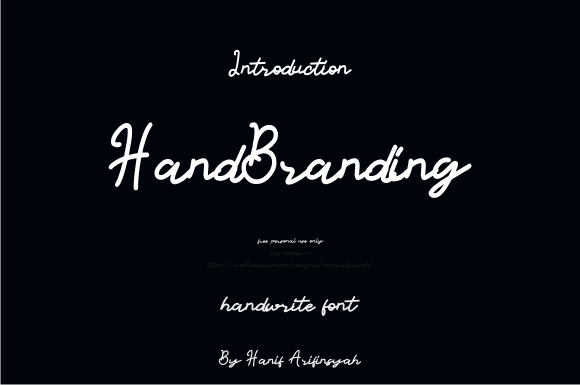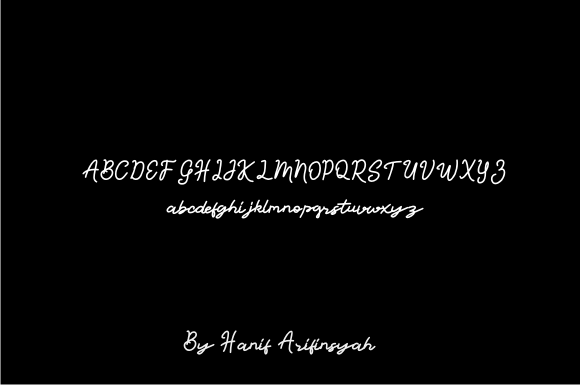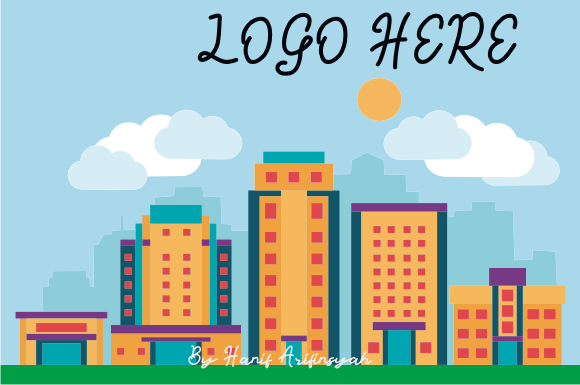
Introducing Handbranding Font: The Ultimate Game-Changer for Designers and Crafters
Are you tired of using the same old fonts in your designs? Do you want to add a touch of personality and uniqueness to your projects? Look no further than Handbranding Font, a cool and bold script font that will turn any design idea into a true standout!
What is Handbranding Font?
Handbranding Font is a carefully crafted script font that is designed to make a statement. With its bold and confident strokes, this font is perfect for designers and crafters who want to add a touch of elegance and sophistication to their work. Whether you’re working on a logo, a poster, or a social media graphic, Handbranding Font is sure to turn heads.
Key Features of Handbranding Font
- Unique and Handwritten Style: Handbranding Font has a distinctive handwritten style that sets it apart from other fonts. Its bold and flowing strokes give it a personal and human touch that will make your designs stand out.
- Highly Legible: Despite its bold style, Handbranding Font is highly legible, even at small sizes. This makes it perfect for use in a variety of design applications, from logos and headlines to body text and captions.
- Versatile: Handbranding Font is a versatile font that can be used in a wide range of design applications, from print and digital media to branding and advertising.
- Easily Customizable: With its wide range of characters and glyphs, Handbranding Font can be easily customized to fit your specific design needs.
Who is Handbranding Font for?
Handbranding Font is perfect for designers, crafters, and artists who want to add a touch of personality and uniqueness to their work. Whether you’re a professional designer or a DIY crafter, this font is sure to inspire your creativity and help you create stunning designs.
How to Use Handbranding Font
- Use it as a Headline Font: Handbranding Font is perfect for use as a headline font, where its bold and confident style can really make a statement.
- Pair it with Other Fonts: Handbranding Font pairs well with a wide range of other fonts, from simple sans serifs to elegant scripts.
- Experiment with Colors and Textures: Handbranding Font looks great in a wide range of colors and textures, so don’t be afraid to experiment and find the look that works best for your design.
Benefits of Using Handbranding Font
There are many benefits to using Handbranding Font in your designs. Here are just a few:
- Adds Personality and Uniqueness: Handbranding Font adds a touch of personality and uniqueness to your designs, setting them apart from the competition.
- Increases Legibility: Despite its bold style, Handbranding Font is highly legible, making it perfect for use in a wide range of design applications.
- Saves Time: With its wide range of characters and glyphs, Handbranding Font can save you time and effort in your design work.
In conclusion, Handbranding Font is a cool and bold script font that is perfect for designers and crafters who want to add a touch of personality and uniqueness to their work. With its unique and handwritten style, high legibility, and versatility, this font is sure to turn any design idea into a true standout. So why wait? Download Handbranding Font today and start creating stunning designs that will leave a lasting impression!